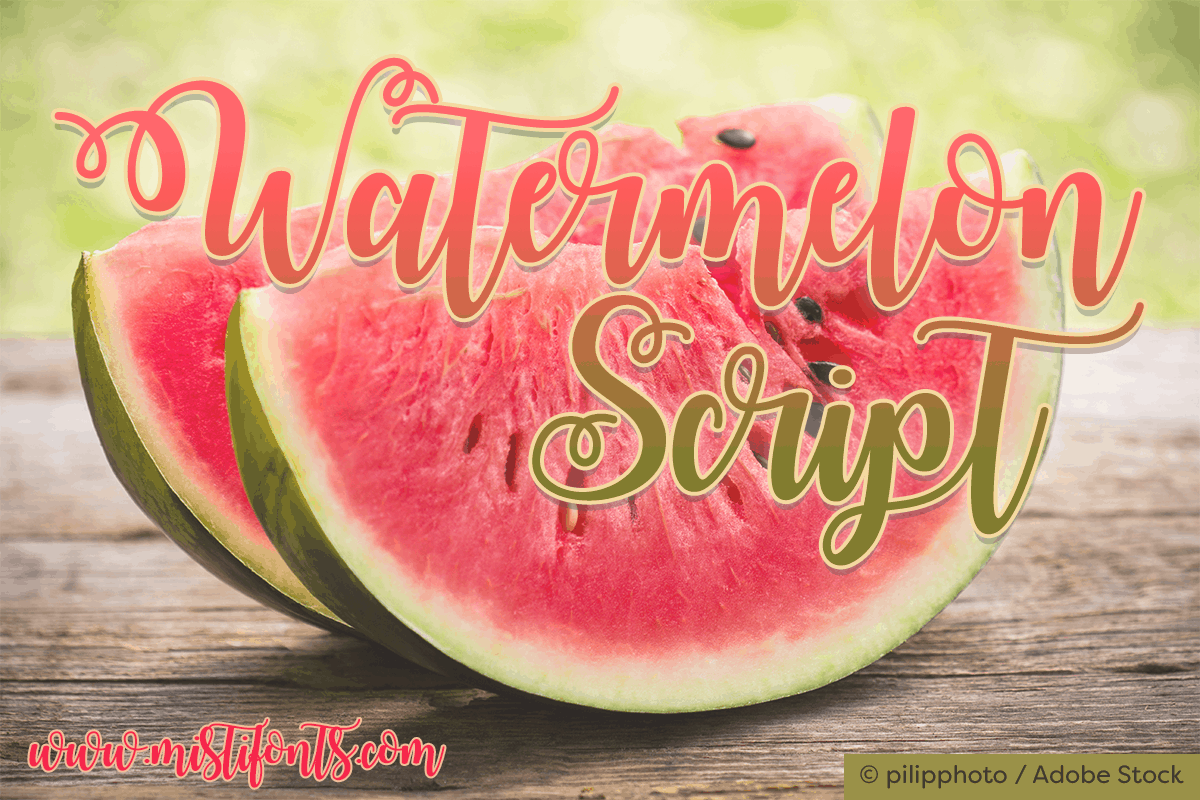
Watermelon Script
Watermelon Script Font
About The Watermelon Script Font
Watermelon Script is a juicy, bouncy calligraphy font that is perfect for your craft and design projects!